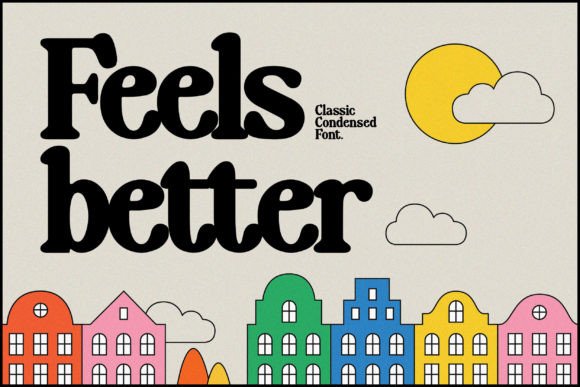
Introducing Feels Better Font: The Cool, Funky Serif Display Font
In the world of typography, fonts play a crucial role in making or breaking a design project. A font can elevate the aesthetic appeal of a project, convey the right tone and personality, and capture the audience’s attention. If you’re looking for a font that can add a unique charm and personality to your design, look no further than Feels Better Font. In this article, we’ll explore what makes Feels Better Font special, its features, and how it can enhance your design projects.
What is Feels Better Font?
Feels Better Font, also known as Fells Better, is a cool, funky serif display font designed to add a touch of personality to your designs. Its unique and quirky style sets it apart from other fonts, making it perfect for creative projects that require a bit of flair. Whether you’re working on a branding project, a poster, or a website, Feels Better Font can add a dash of fun and whimsy to your design.
Key Features of Feels Better Font
So, what makes Feels Better Font so special? Here are some of its key features:
- Unique Charm and Personality: Feels Better Font has a distinct personality that shines through in its design. Its quirky and playful style makes it perfect for projects that require a bit of character.
- Serif Display Font: As a serif display font, Feels Better Font features small lines or flourishes at the end of its strokes, giving it a classic and sophisticated look.
- Cool and Funky: Feels Better Font is not your average font. Its cool and funky style makes it perfect for creative projects that require a bit of edge.
- Versatile: Despite its unique style, Feels Better Font is surprisingly versatile. It can be used for a wide range of design projects, from branding and posters to websites and magazines.
How to Use Feels Better Font
Now that we’ve covered the features of Feels Better Font, let’s talk about how to use it. Here are some tips to get you started:
- Pair it with Other Fonts: Feels Better Font pairs well with other fonts, especially sans-serif fonts. Try pairing it with a clean and simple font to create visual interest.
- Use it for Headings: Feels Better Font is perfect for headings and titles. Its large size and bold style make it easy to read and attention-grabbing.
- Add it to Your Branding: If you’re looking to add a bit of personality to your branding, Feels Better Font is a great choice. Use it for your logo, business cards, or packaging.
- Experiment with Colors: Feels Better Font looks great in a variety of colors. Experiment with different colors to find the one that works best for your design.
The Benefits of Using Feels Better Font
So, why should you use Feels Better Font? Here are some benefits of using this cool, funky serif display font:
- Stand Out from the Crowd: Feels Better Font is a unique and distinctive font that will help your design stand out from the crowd.
- Add Personality to Your Design: Feels Better Font has a lot of personality, making it perfect for designers who want to add a bit of character to their designs.
- Easy to Read: Despite its quirky style, Feels Better Font is easy to read, even at small sizes.
- Versatile: Feels Better Font can be used for a wide range of design projects, making it a great addition to your font library.
In conclusion, Feels Better Font is a cool, funky serif display font that’s perfect for designers who want to add a bit of personality to their designs. Its unique charm and character make it a great choice for creative projects, from branding and posters to websites and magazines. With its versatility, ease of use, and range of benefits, Feels Better Font is a great addition to any font library.
- What type of font is Feels Better Font?: Feels Better Font is a serif display font.
- Is Feels Better Font easy to read?: Yes, Feels Better Font is easy to read, even at small sizes.
- Can I pair Feels Better Font with other fonts?: Yes, Feels Better Font pairs well with other fonts, especially sans-serif fonts.